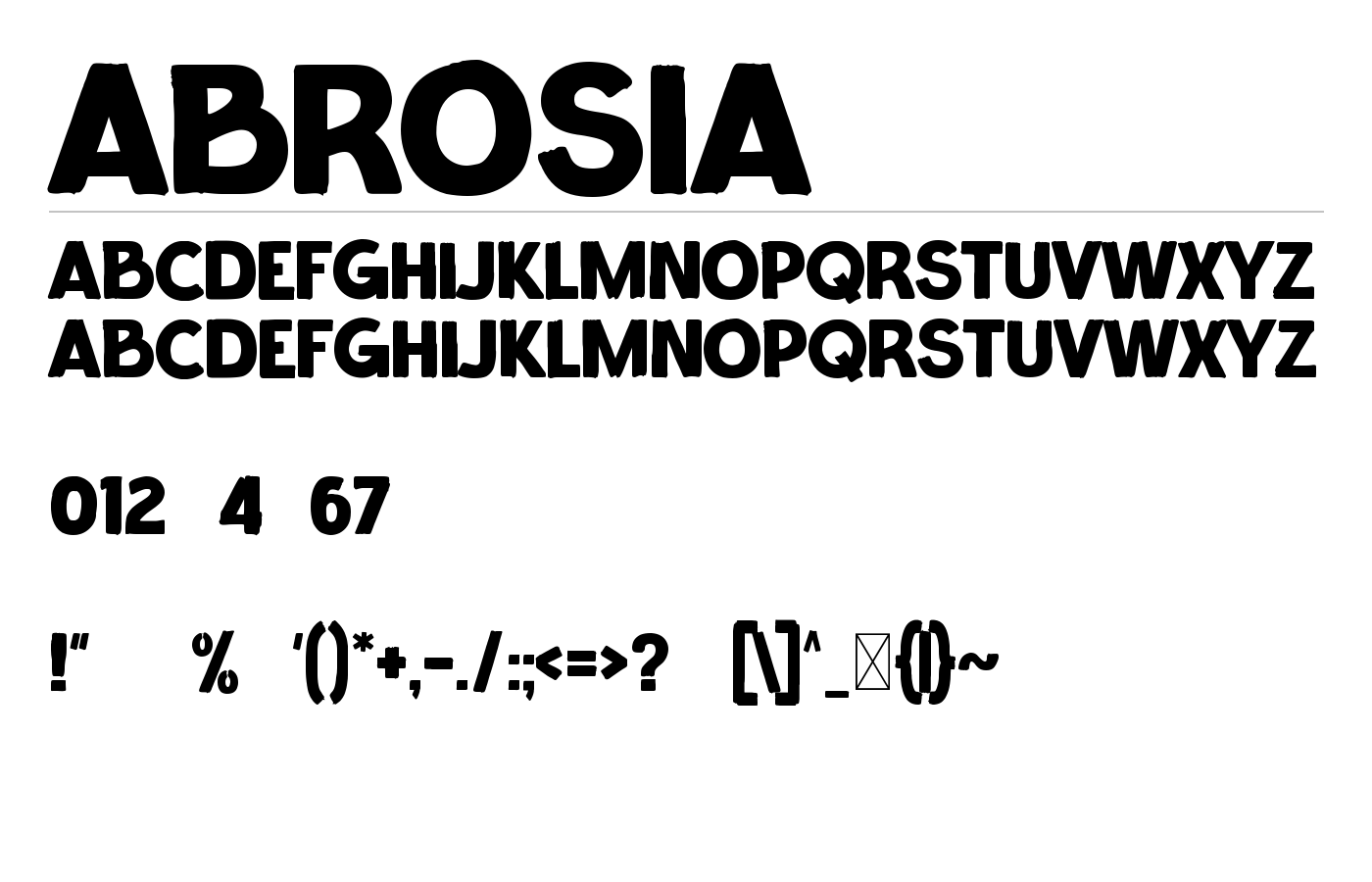
Abrosia is a bold, playful sans serif font with a hand-drawn feel, featuring irregular edges and a slightly chunky, condensed structure. Its uppercase letterforms are solid and distinctive, making it ideal for creative, informal branding or eye-catching headlines that need personality and warmth. This font works well in packaging, posters, and casual editorial designs where a friendly and approachable vibe is desired.
Abrosia Font
About Abrosia Font
| Font family | Abrosia Font |
| Designer | Anang F & Malik Wsn | Gassstype© Studio 2021 |